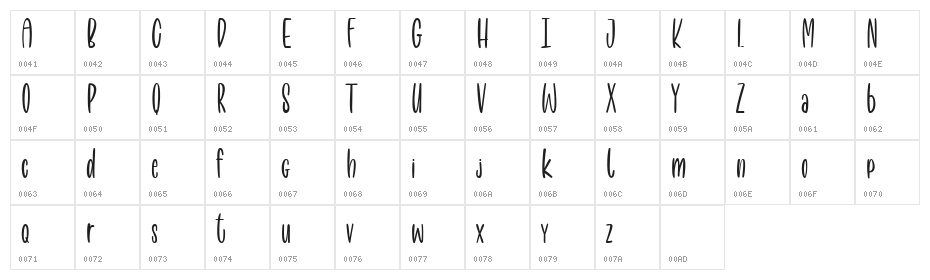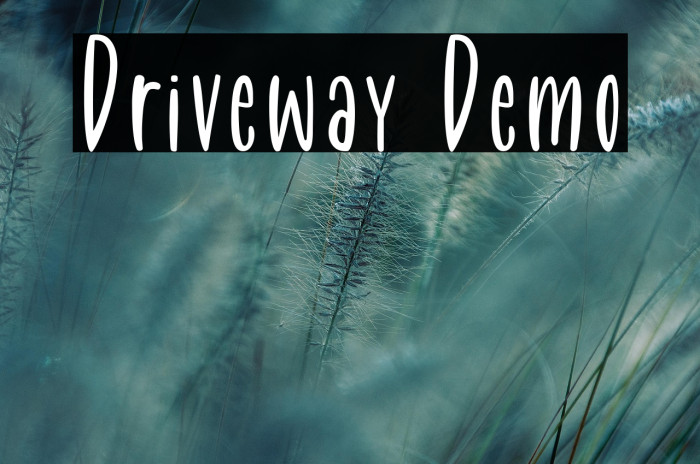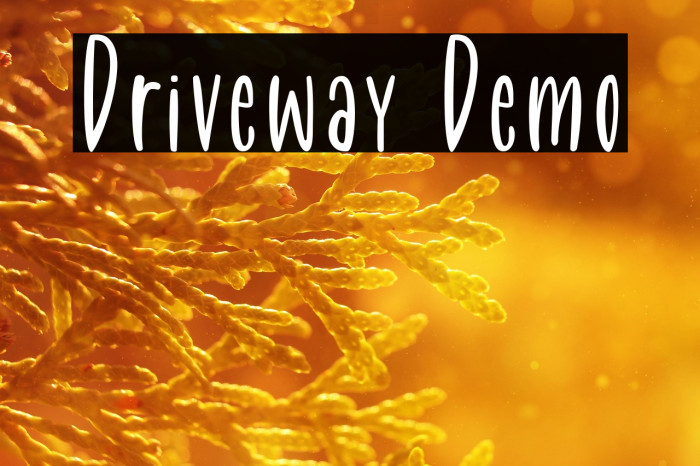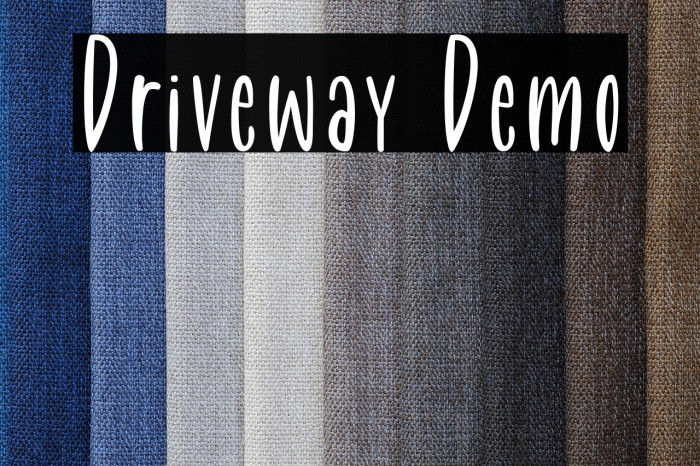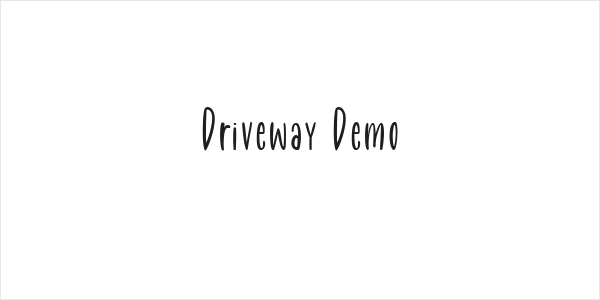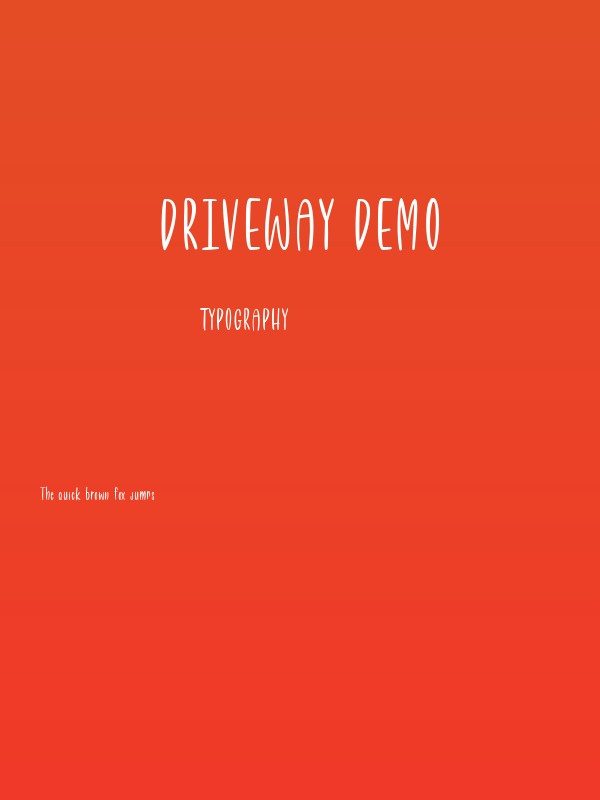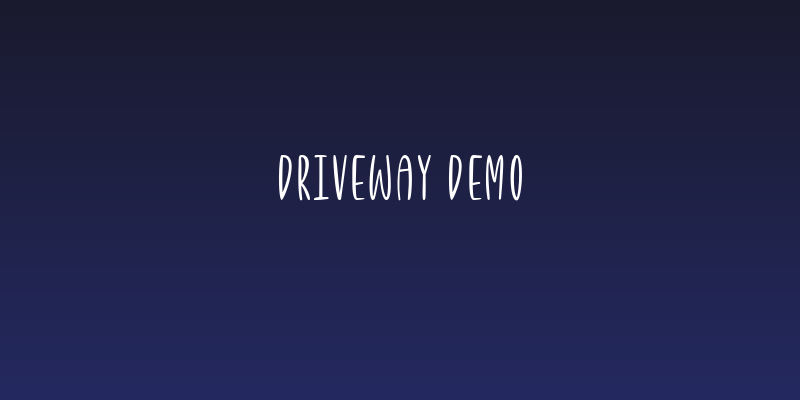
Driveway Demo Font
Driveway Demo Description
This font features a playful and casual handwritten style, characterized by tall, narrow letters with a consistent stroke width. The uppercase and lowercase letters maintain a cohesive look, with slightly exaggerated curves and a friendly appearance. The font's informal nature is enhanced by its smooth, rounded edges and the slight slant of the characters, giving it a dynamic and lively feel. The spacing between characters is moderate, allowing for easy readability while maintaining its whimsical charm. This font is ideal for projects that require a personal touch or a relaxed, approachable aesthetic.
| Use Case | Headlines, Invitations, Branding |
| Proposed Projects | Perfect for greeting cards, invitations, children's books, and playful branding. |